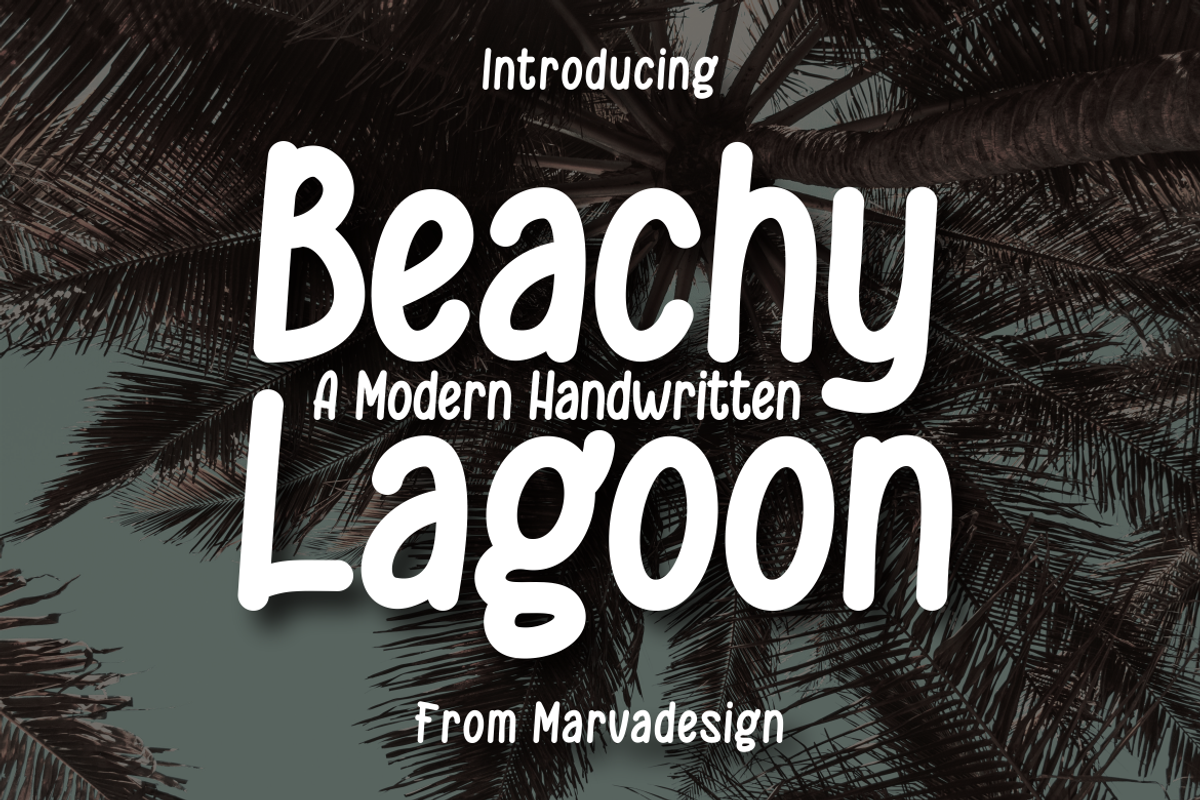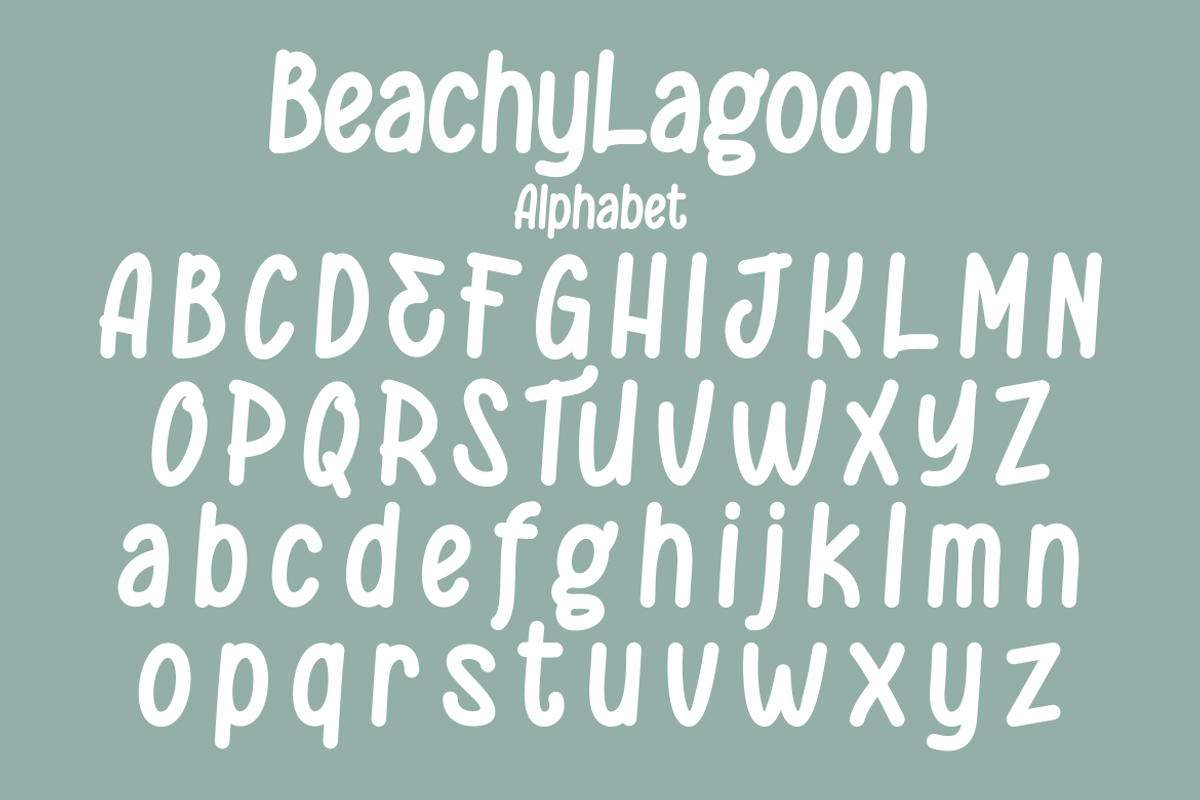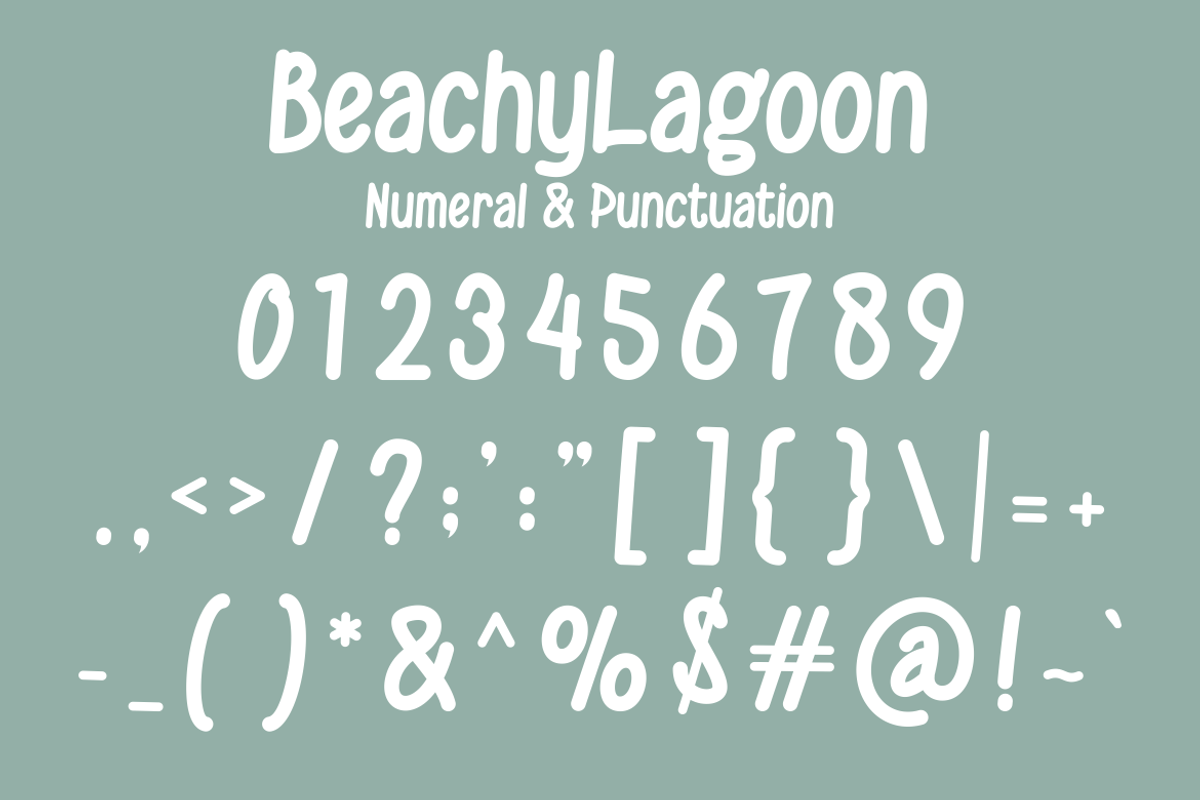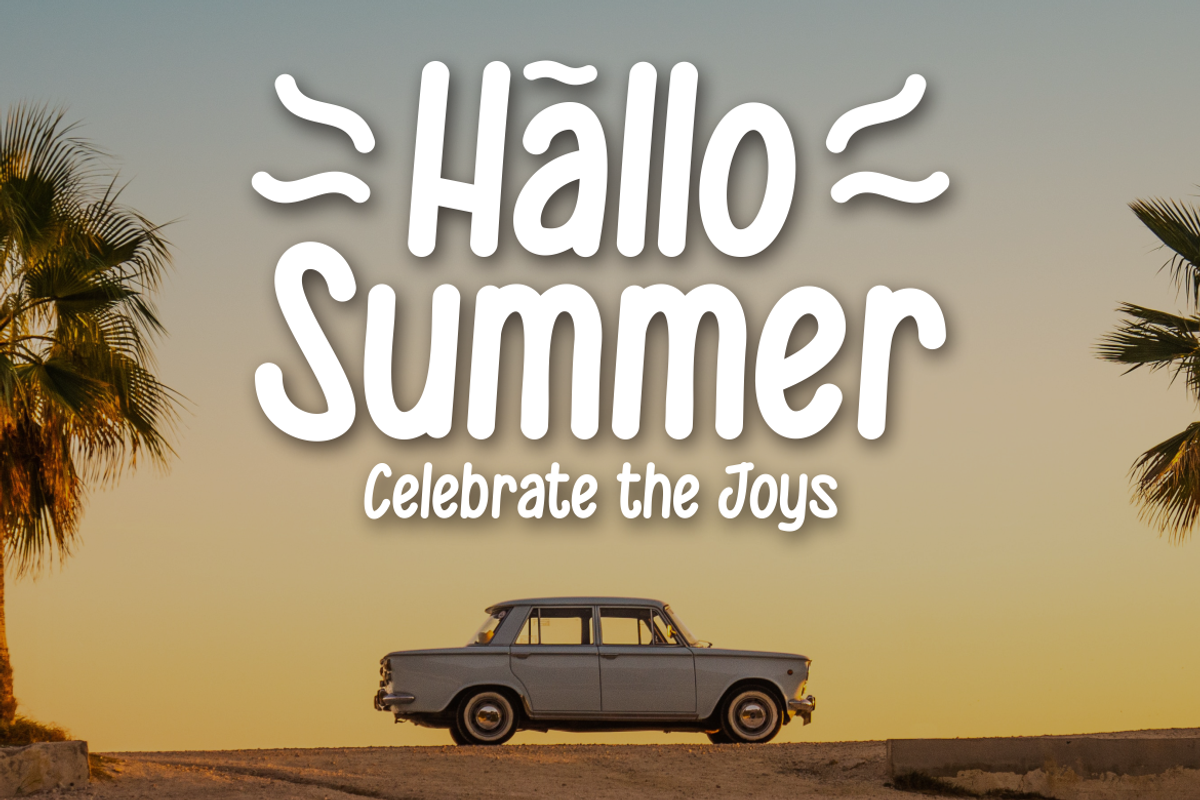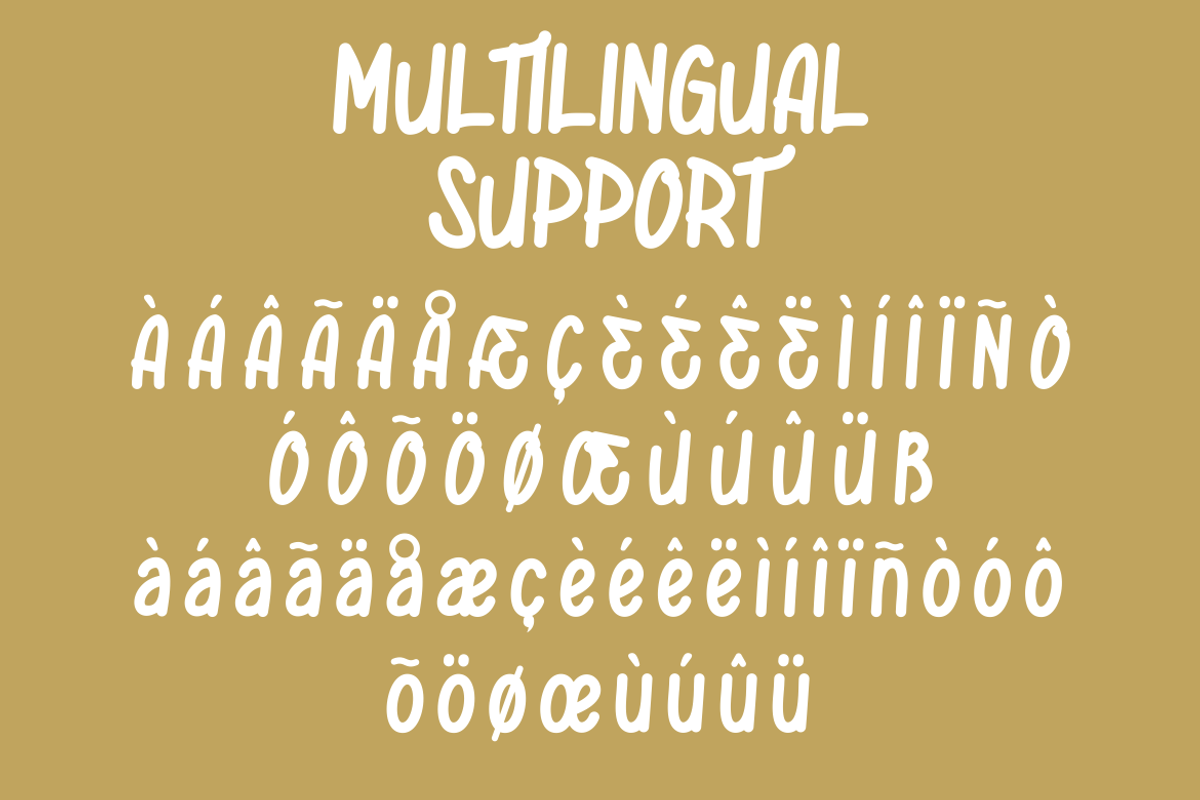
Beachy Lagoon - A Modern Handwritten
Introducing our new product Beachy Lagoon Font - Modern Font Beachy Lagoon Font*** - Modern Font is a bold and authentic display font. The font is suitable for any branding project like logo, Template Design, Product and many more. outstanding in a wide range of contexts.